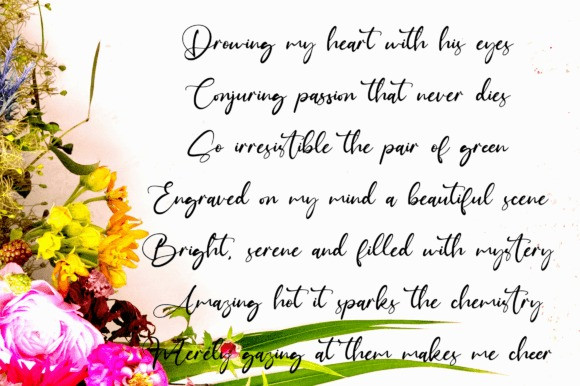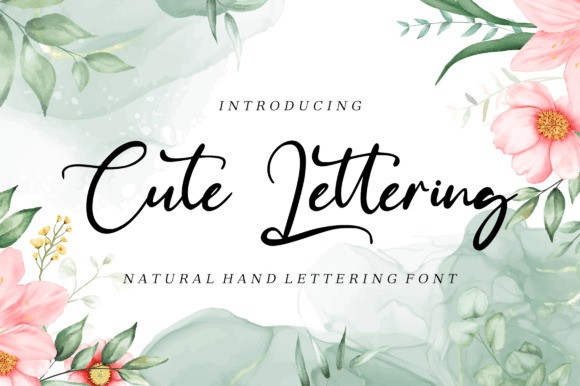
Cute Lettering Font
Cute Lettering font is a lovely and timeless handwritten font. It is the best choice for creating eye-catching logos, branding, and quotes. Cute lettering font is PUA encoded, which means you can access all of the glyphs and swashes with ease!